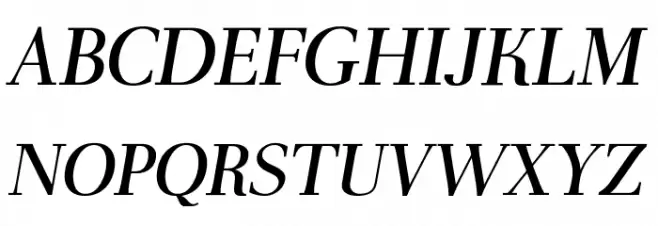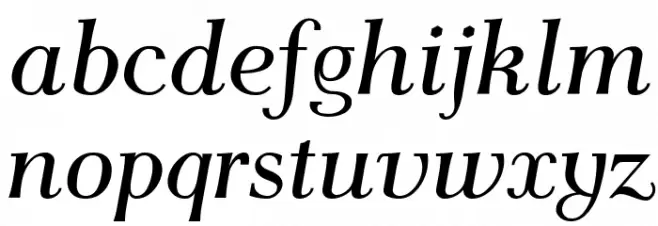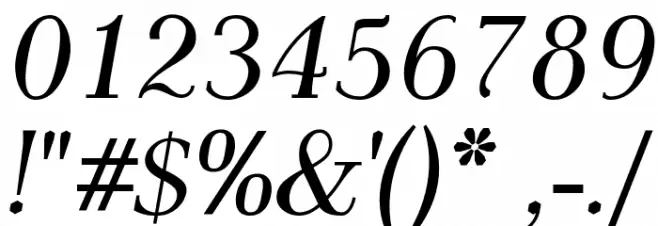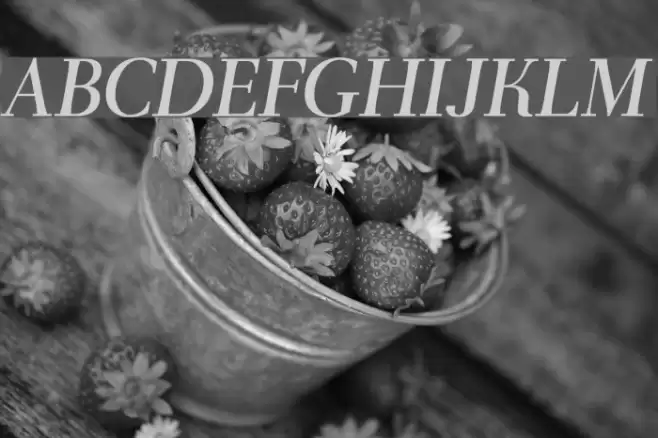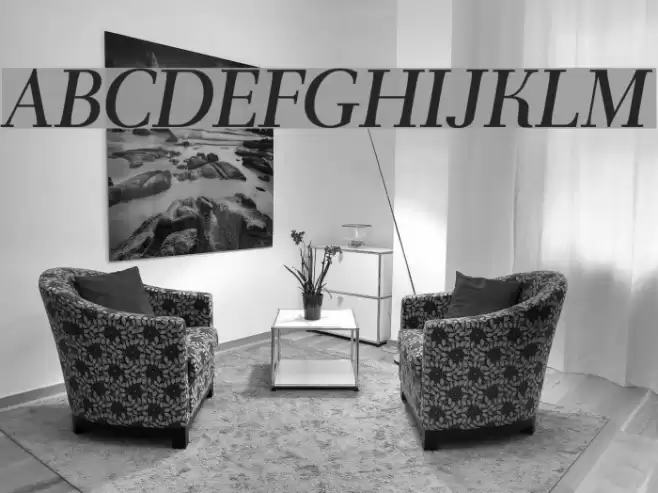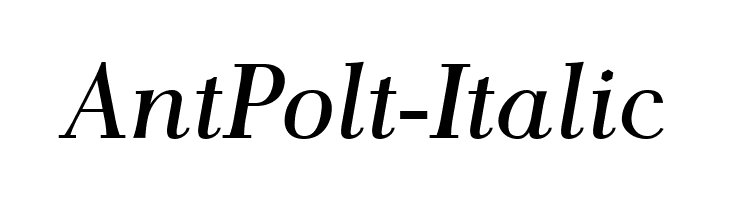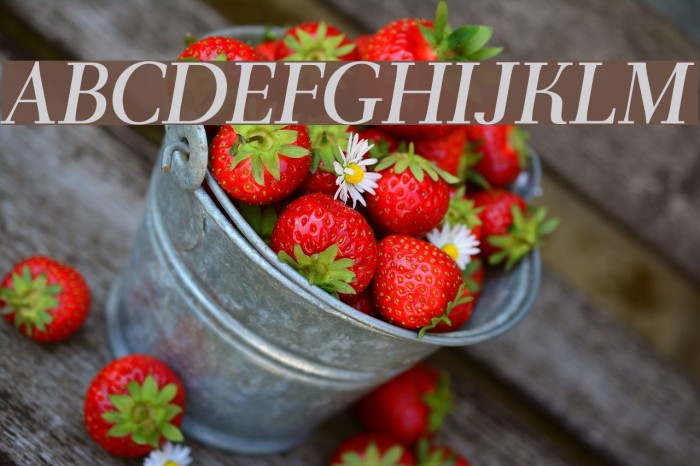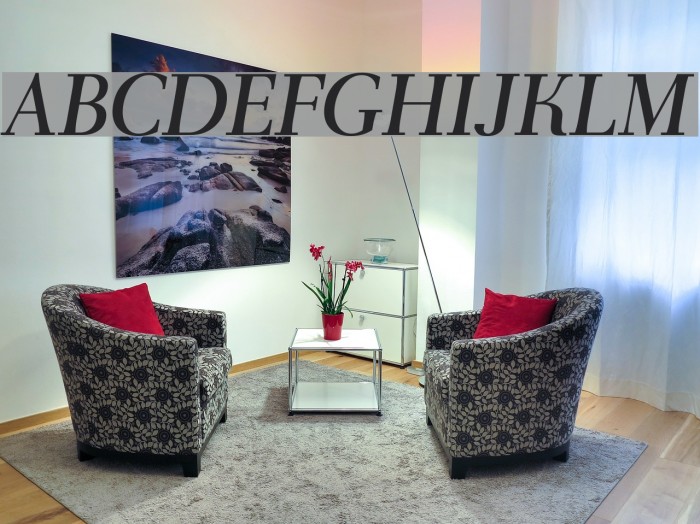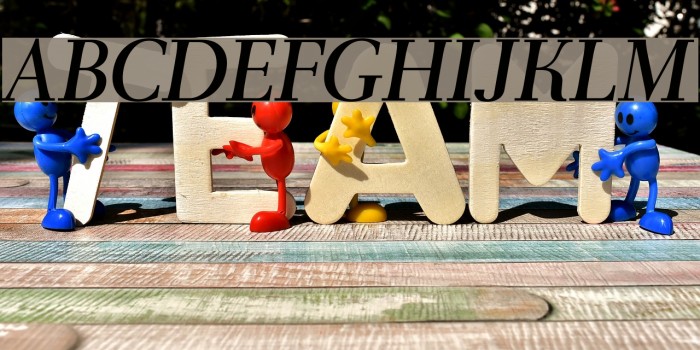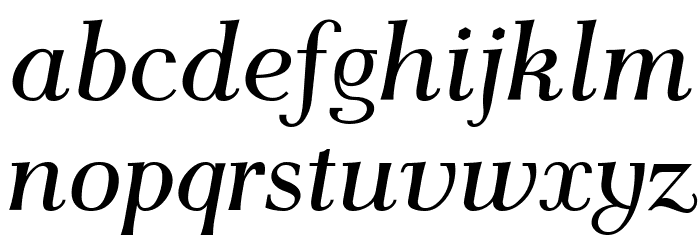
AntPolt-Italic
This elegant serif font features a classic italic style with a refined and sophisticated appearance. The letters are slightly slanted, giving a sense of motion and fluidity. The strokes are moderately thick, providing a balanced contrast that enhances readability while maintaining a stylish look. The uppercase letters are tall and commanding, while the lowercase letters are more rounded and approachable. The numerals are clear and distinct, making them suitable for both text and display purposes. Special characters are well-defined, adding versatility to the font's usage.
An elegant serif italic font with balanced contrast and refined style.
- Proposed Projects: Ideal for formal invitations, elegant branding, editorial design, and high-end product packaging.
- Category: Serif
- Overall Style: Classic